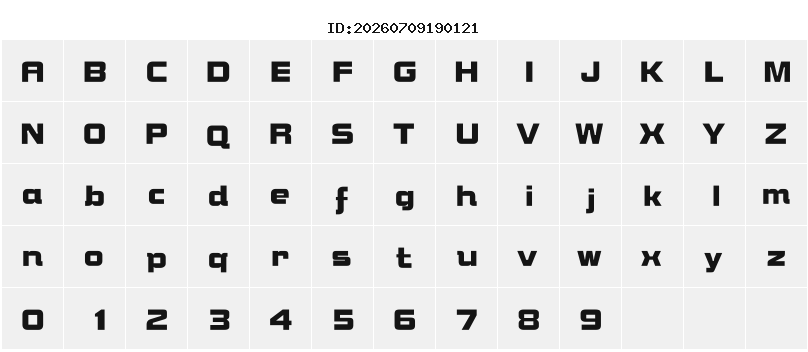
DFPZongYiW9-B5 Preview
• Font Name: DFPZongYiW9-B5
• Full Font Name: DFPZongYiW9-B5
About DFPZongYiW9-B5.ttf
DFPZongYiW9-B5.ttf is a modern, elegant sans-serif font designed for ultimate readability and visual harmony. Perfect for branding, headlines, web design, and print materials.